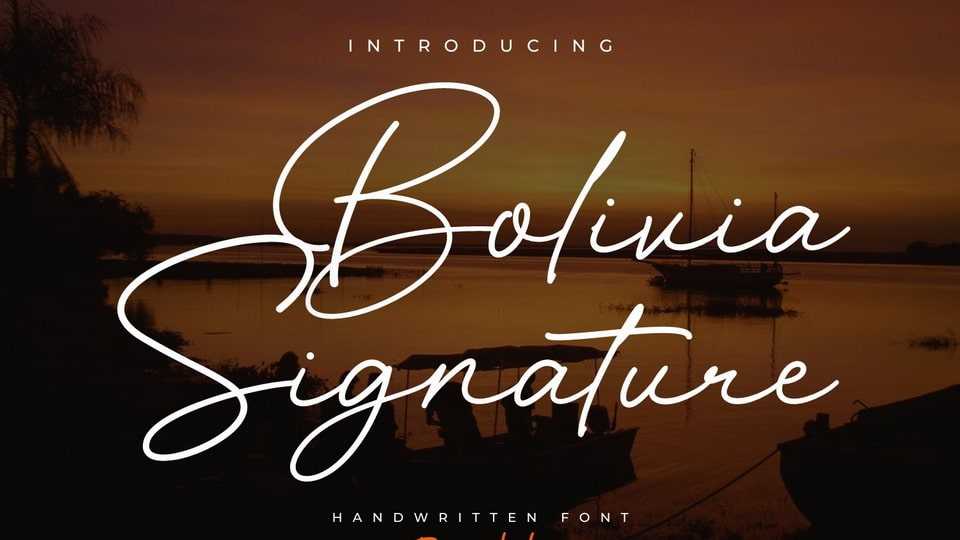
Download Bolivia font, a signature style handwritten typeface made with natural and precision flow, perfect for branding, websites, and editorial designs.